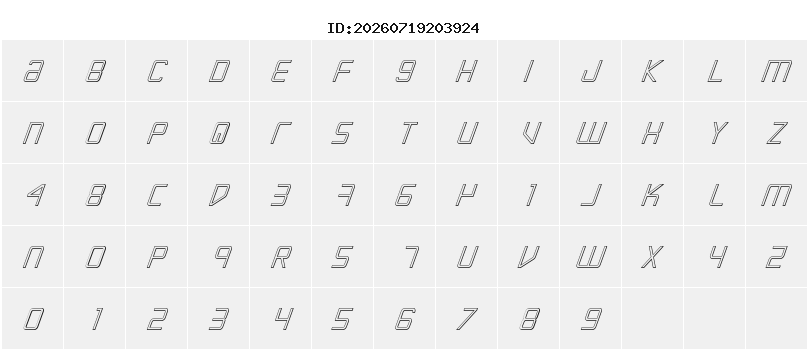
• Font Name: Escape Artist 3D Italic
• Full Font Name: Escape Artist 3D Italic
About Escape Artist 3D Italic.ttf
Escape Artist 3D Italic.ttf is a modern, elegant sans-serif font designed for ultimate readability and visual harmony. Perfect for branding, headlines, web design, and print materials.